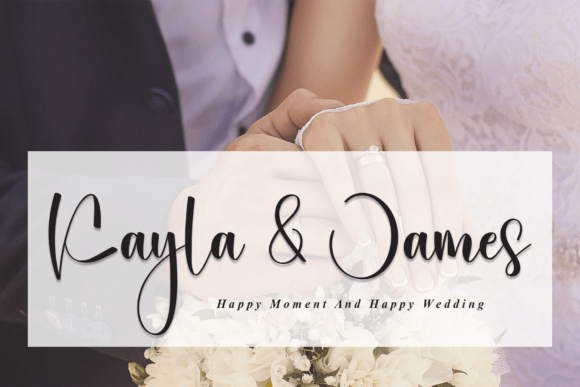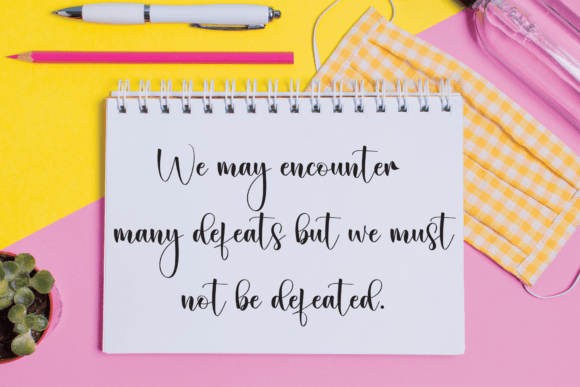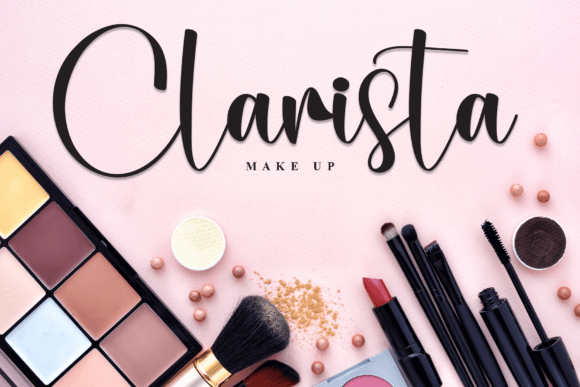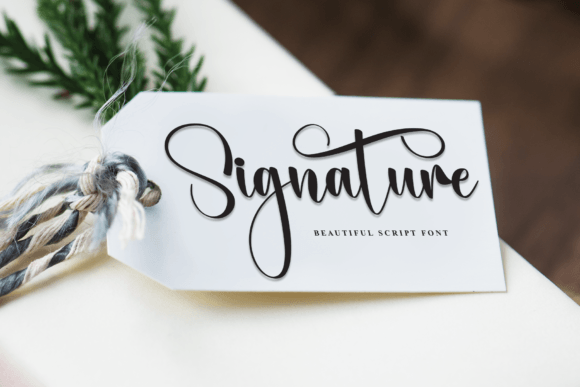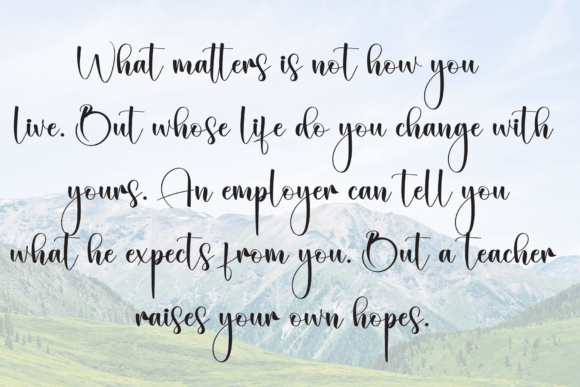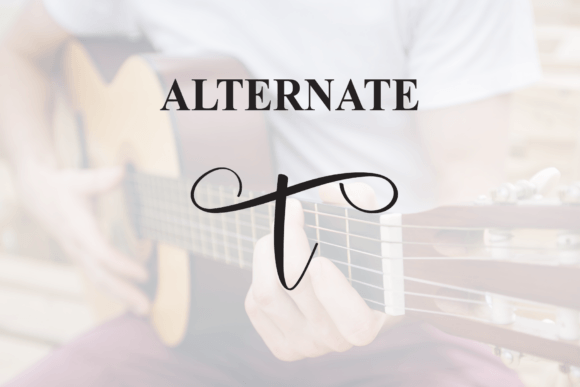
The Sound of Typography: Discovering Guitar Font
Have you ever stumbled upon a font that just strikes the right chord? For me, that moment came when I was working on a logo design project and stumbled upon Guitar Font. The instant I typed out the words “Music to My Ears,” I knew I had found something special.
Guitar Font is a beautiful, handwritten typeface that adds a touch of elegance to any design. Its purpose is to bring a personal and emotional connection to your branding, quotes, and logos. As a designer, you know how crucial it is to find the perfect font that resonates with your audience, and Guitar Font is sure to do just that.
With its unique and beautiful touch, Guitar Font is a valuable addition to any designer’s toolkit. Whether you’re working on a music-themed project or just want to add some personality to your designs, Guitar Font is sure to make your creations come alive.
- Unique Characteristics: Guitar Font features a distinctive design inspired by guitar fretboards, making it perfect for music-related projects, such as song titles, album covers, and guitar tablatures.
- Kerning and Ligatures: Guitar Font includes advanced kerning and ligature features, ensuring that characters are displayed smoothly and accurately, even in complex text arrangements.
Guitar Font Review
I recently had the chance to work with the Guitar Font and here’s my honest take on it.
- Unique Design**: The font has a distinctive guitar-inspired design that’s sure to grab attention. It’s perfect for music-related projects or anyone who wants to add a bit of rock ‘n’ roll to their branding.
- High-Quality Graphics**: The font is well-crafted, with clear and crisp graphics that make it easy to read. It’s available in various weights, including bold and italic, which adds to its versatility.
- Limited Character Set**: The font has a limited character set, which may make it less suitable for longer blocks of text. This can be a bit restrictive, especially for projects that require a lot of copy.
- Not Ideal for Body Text**: While the font is great for headlines and titles, it’s not the most readable font for body text. This may require designers to pair it with a more readable font for larger blocks of text.
Overall, the Guitar Font is a unique and eye-catching font that’s perfect for music-related projects or anyone looking to add a bit of flair to their branding. While it has its limitations, it’s still a great addition to any designer’s toolkit.
Use Guitar Font to create eye-catching headlines and titles.
Combine Guitar Font with other fonts and design elements to create a unique and memorable design.
Guitar Font is ideal for music-related projects, such as album artwork, concert posters, and music-themed merchandise.
Use Guitar Font to create a fun and playful atmosphere for events, such as music festivals and concerts.